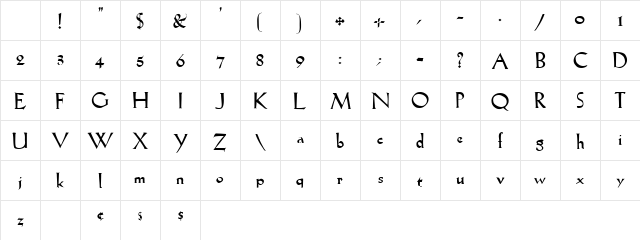
Complete Lilith-Heavy Regular glyph index. Displaying only characters natively supported by Lilith-Heavy Regular font.
Lilith-Heavy is a composed and adaptable typeface that performs quietly and consistently across a wide range of design contexts.